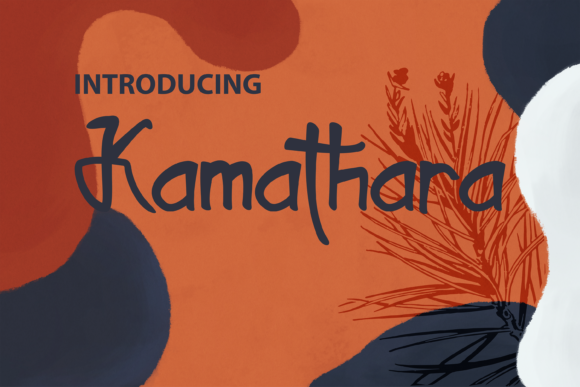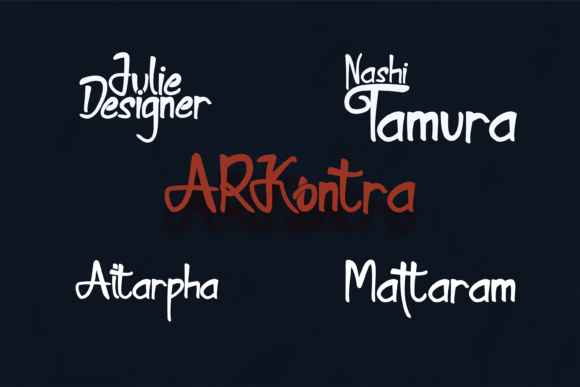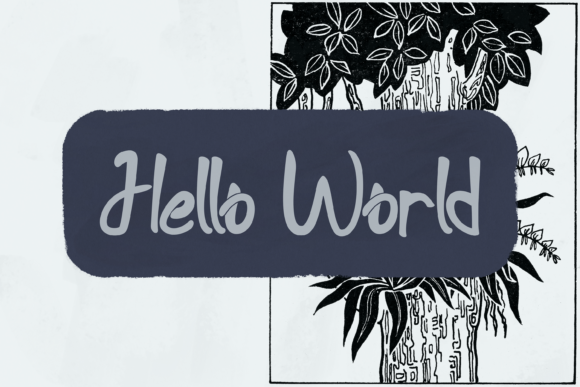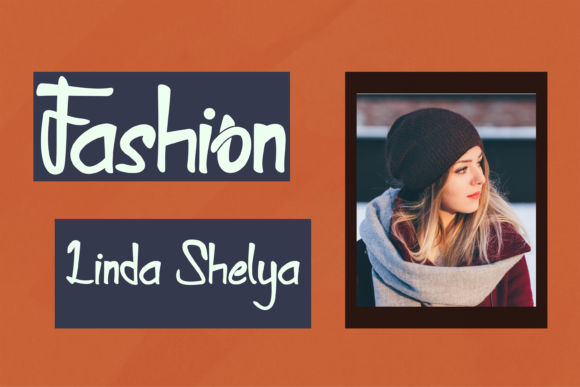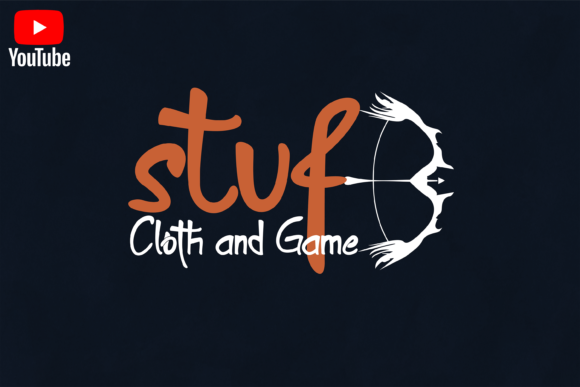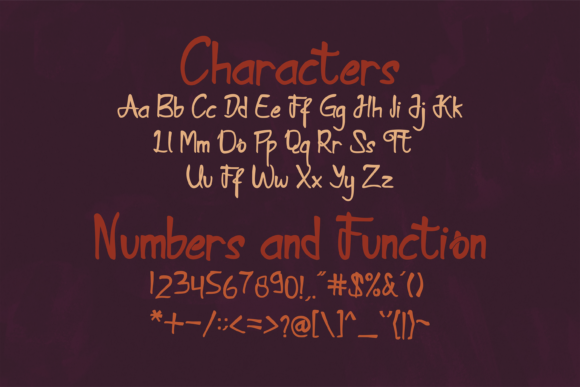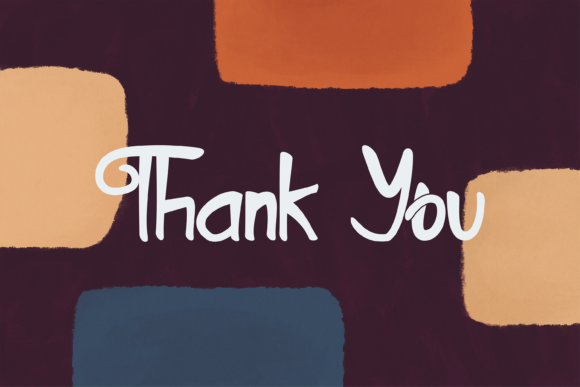
HomeScript FontsKamathara Font Script Fonts Kamathara Font FacebookXPinterestWhatsApp Kamathara Font Poster 2 Kamathara Font Poster 3 Kamathara Font Poster 4 Kamathara Font Poster 5 Kamathara Font Poster 6 Kamathara Font Poster 7 About Kamathara Font Kamathara is a cool and fun script with a personal touch. Use it to add an authentic feel to any design idea! DOWNLOAD ON CREATIVE FABRICAThis font is sold and delivered by Creative Fabrica. Font Canyon may earn a commission if you buy through this link. People also explored Island Font Beautiful Sunflower Font Spotlight Semi-Bold Font Struffoli Butterfly Hellyna Font Love Dingbats Font Milestone Font Radical Outcast Font Kayla Font 412 0 TagsKamathara Font Previous articleEspander FontNext articleAnggada Font LEAVE A REPLY Cancel reply Comment: Please enter your comment! Name:* Please enter your name here Email:* You have entered an incorrect email address! Please enter your email address here Website: Save my name, email, and website in this browser for the next time I comment. Personal Use Free Earwig Factory Personal Use Free Read more about this font Roustel Personal Use Free Read more about this font Monogram Calligraphy Personal Use Free Read more about this font Spaghetti Personal Use Free Read more about this font BLOG Free vs Paid Fonts: Why Investing in Premium Fonts Is Worth It Free vs Paid Fonts: Why Premium Fonts Are Worth It in 2025 The debate of free vs paid fonts continues in the design world. While... Top 10 Handwritten Fonts That Elevate Your Designs To increase your work productivity, choose the most readable fonts. How to Install and Use Fonts on Windows, macOS, and Web Projects